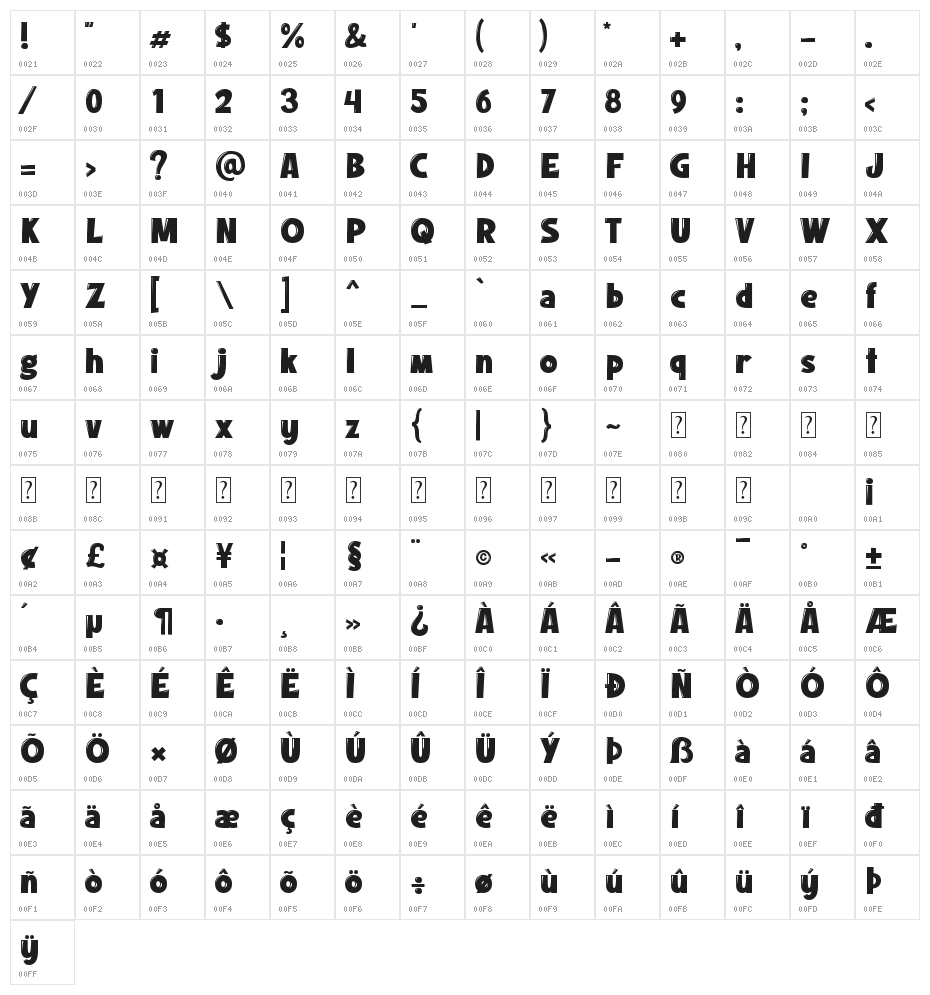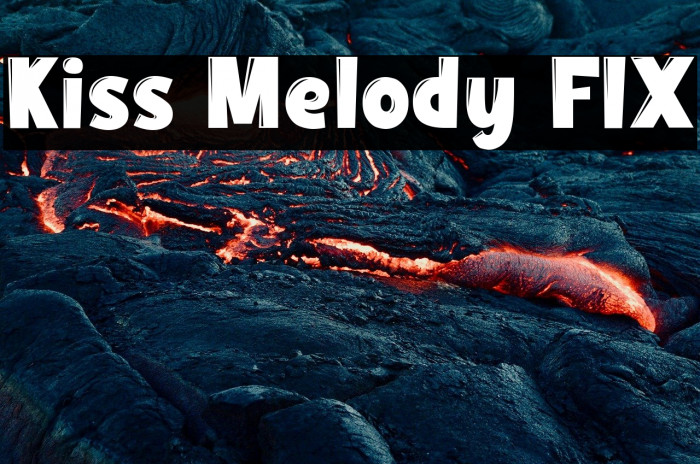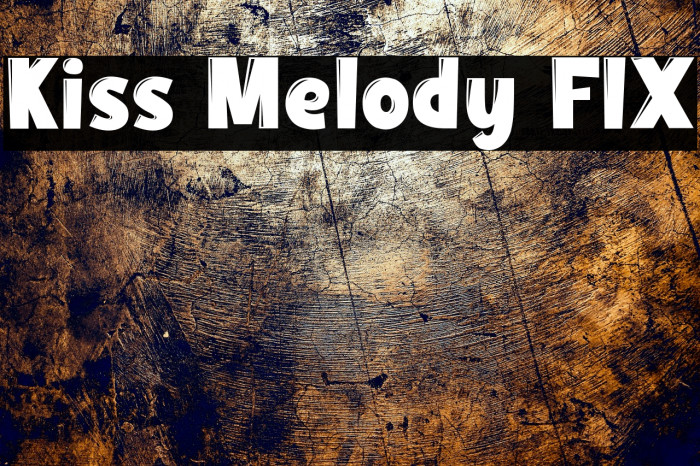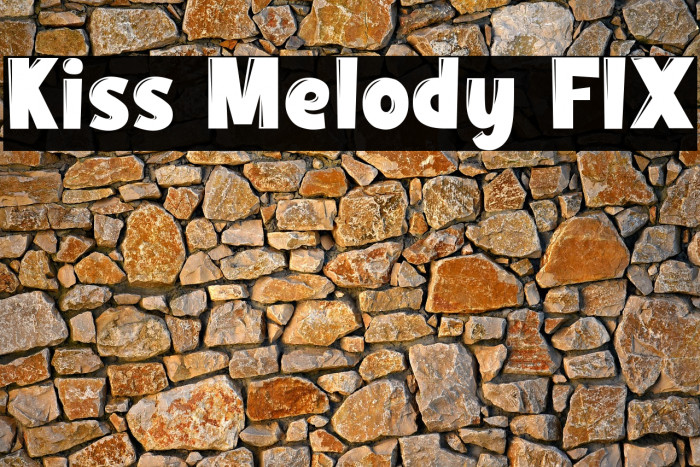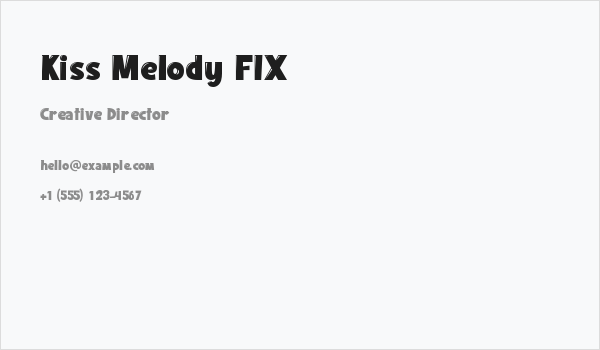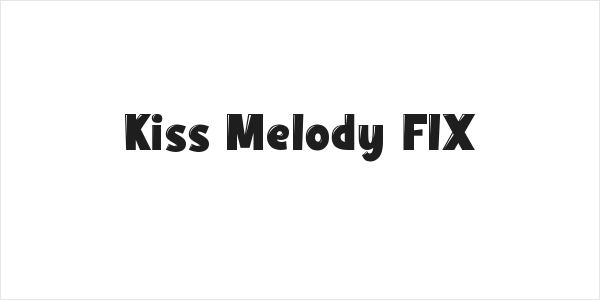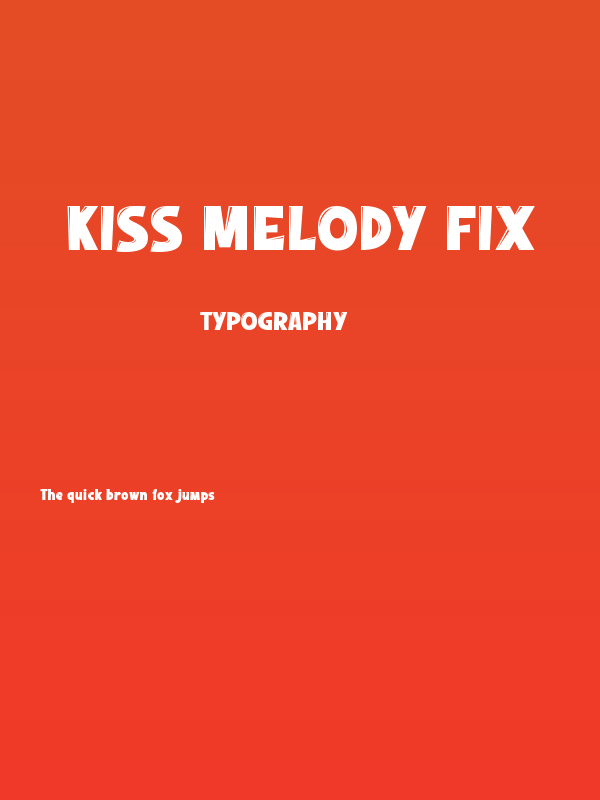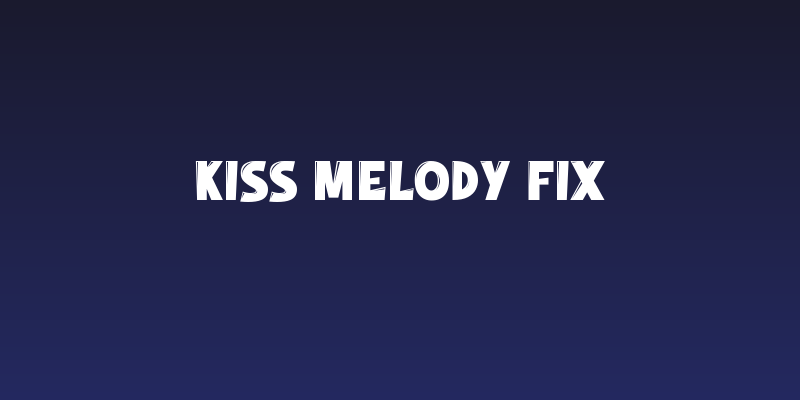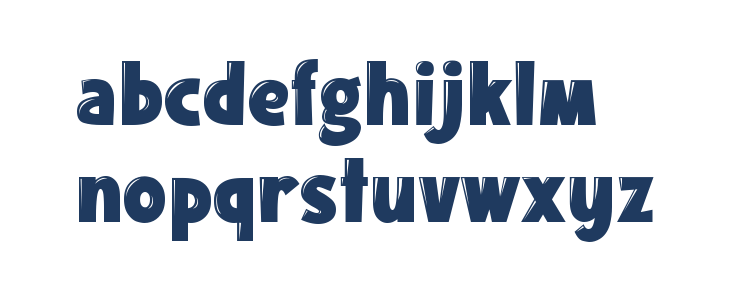
Kiss Melody FIX Font
Kiss Melody FIX Description
This font features a bold and playful style with a strong presence. The characters are thick and slightly condensed, giving them a robust and energetic appearance. The uppercase and lowercase letters maintain a consistent weight, with rounded edges that add a friendly and approachable feel. The numerals are equally bold, ensuring clarity and visibility. Special characters are designed to match the overall aesthetic, making them suitable for various creative applications. The font's unique style makes it ideal for projects that require a touch of fun and dynamism.
| Overall Style | Playful, Energetic |
| Proposed Projects | Ideal for posters, children's books, logos, and branding materials that require a lively and engaging typeface. |